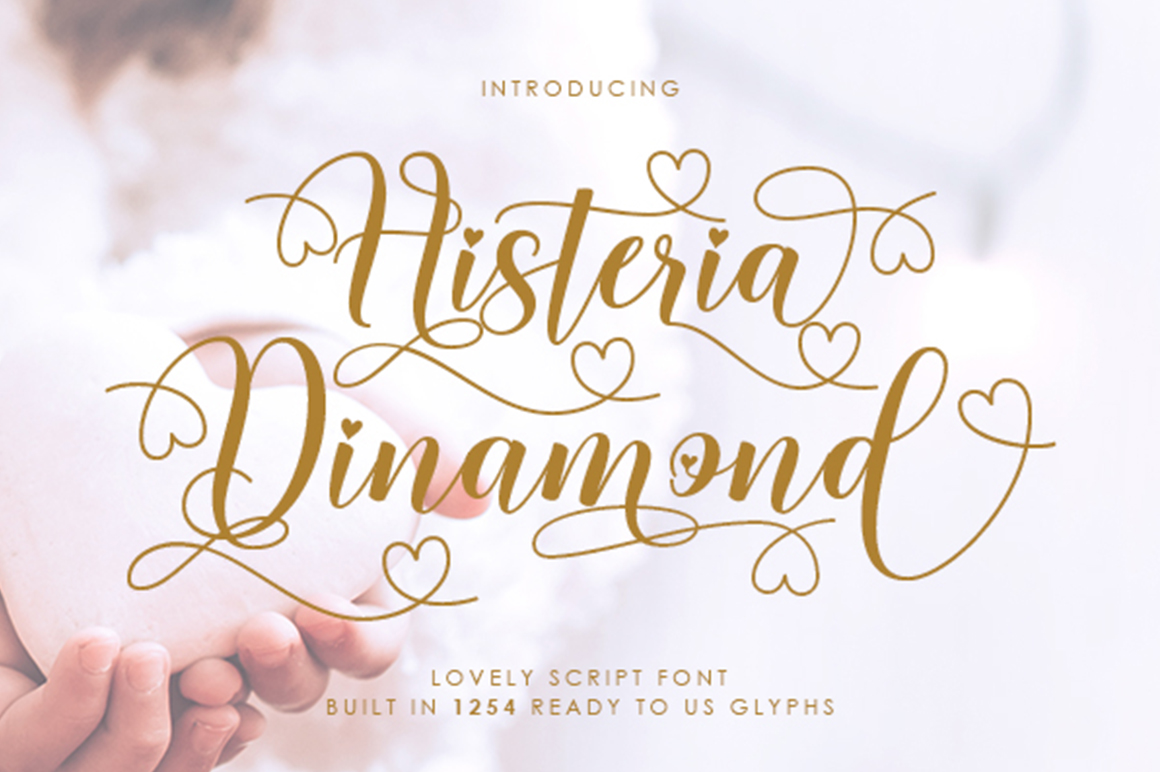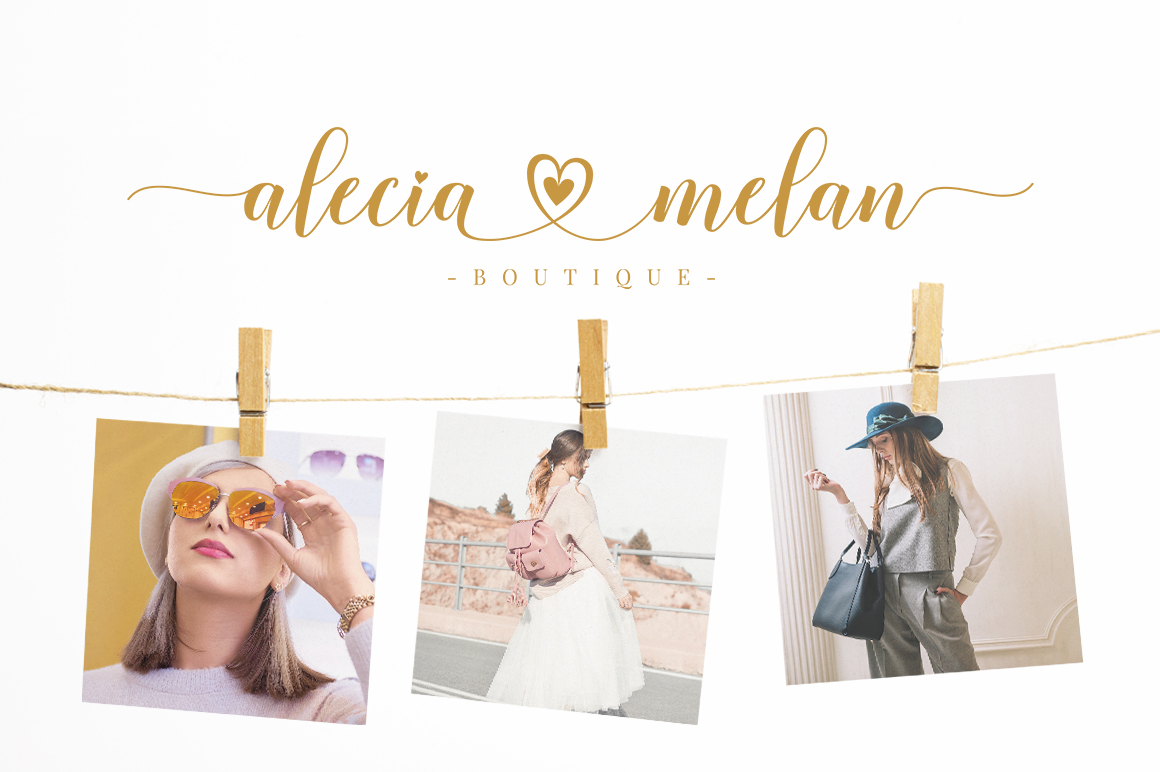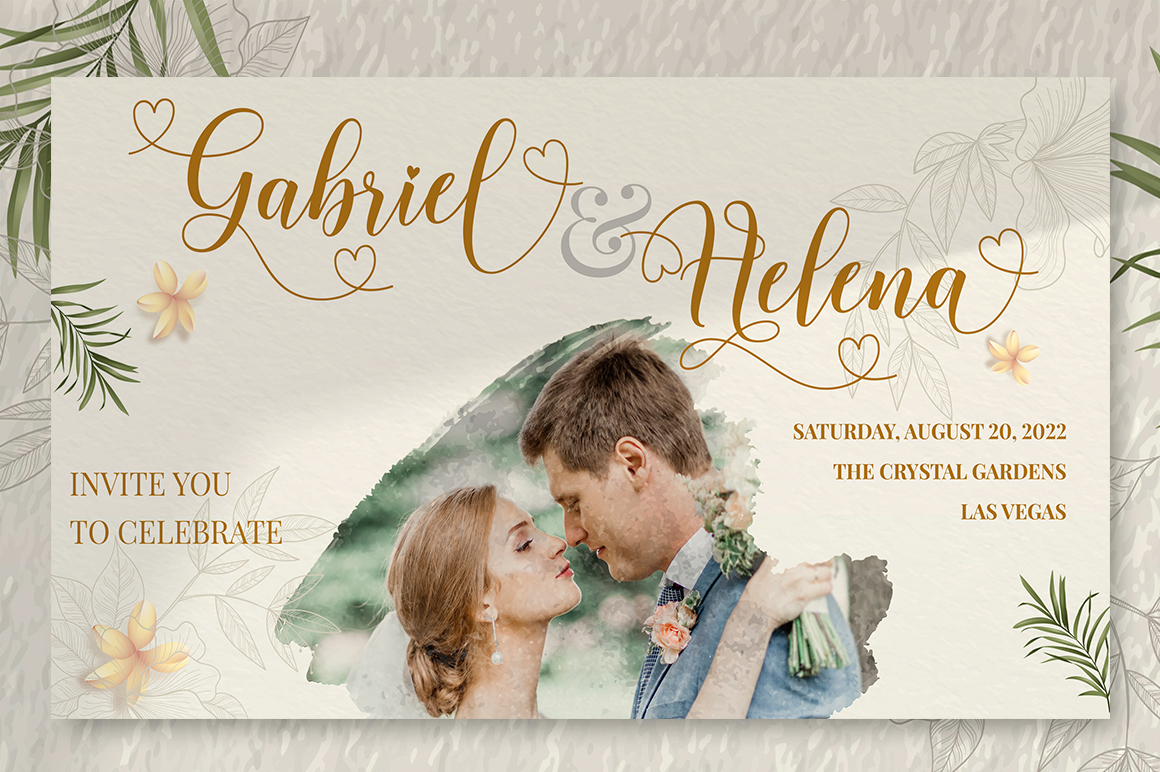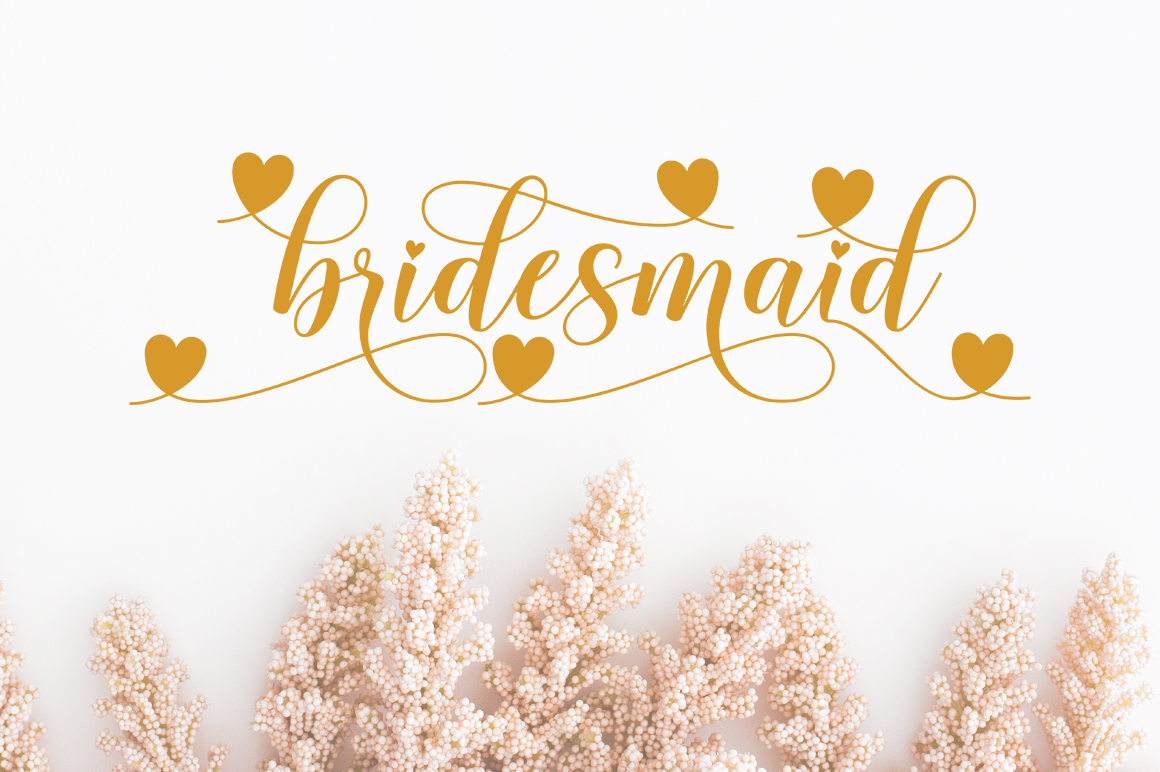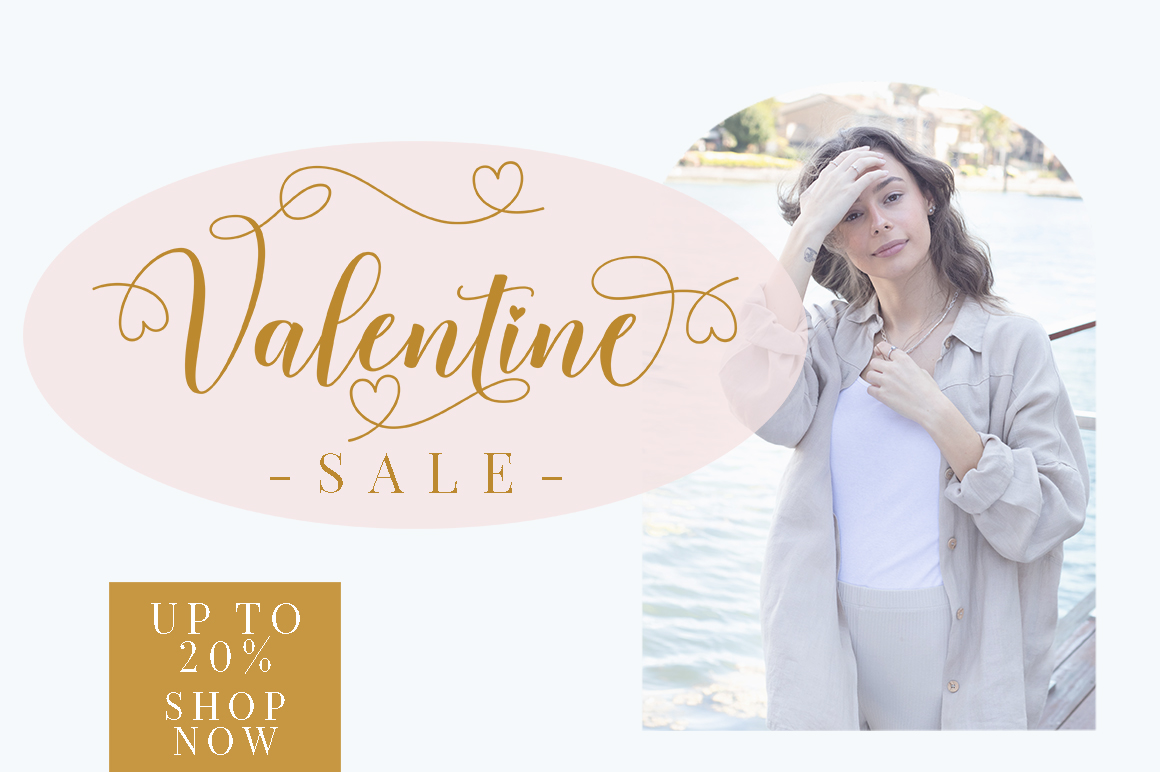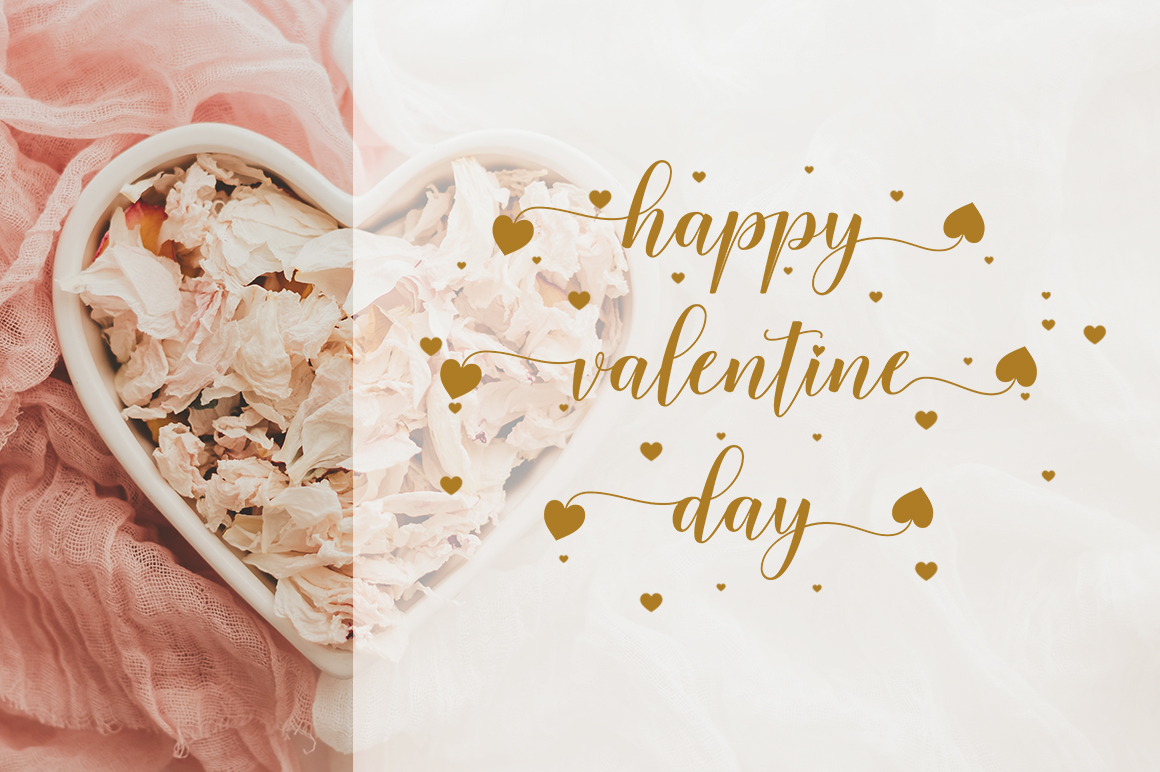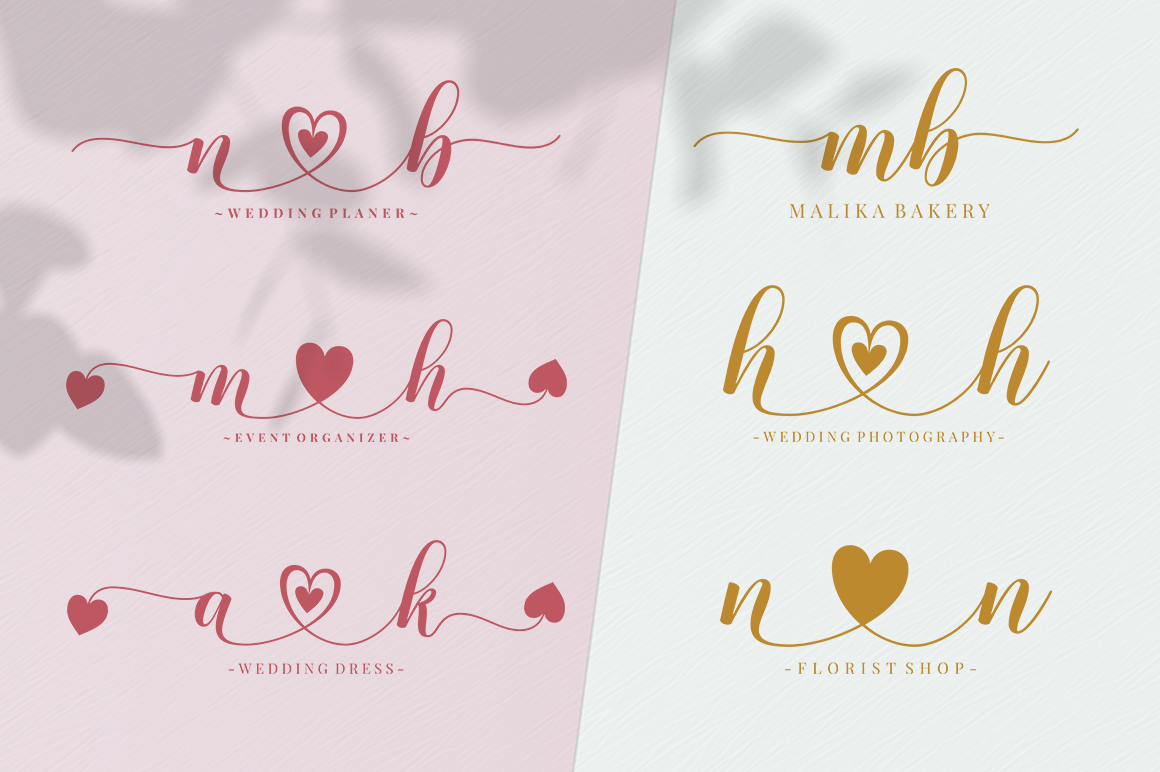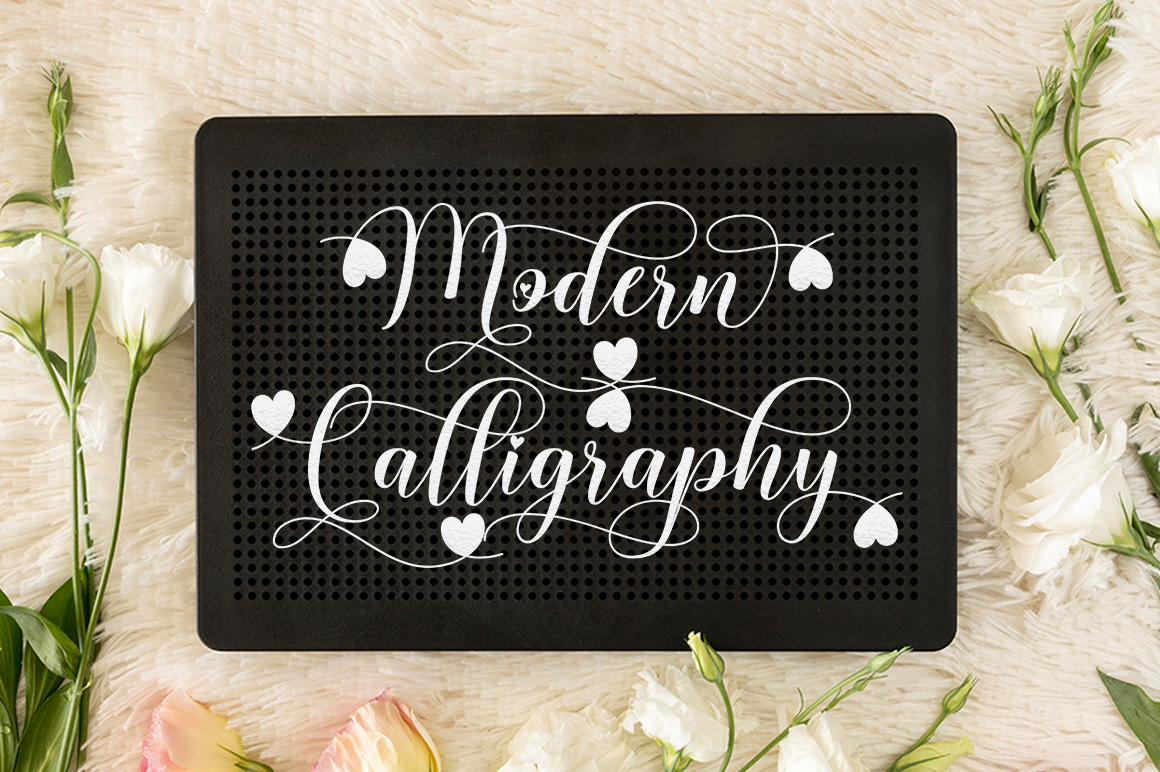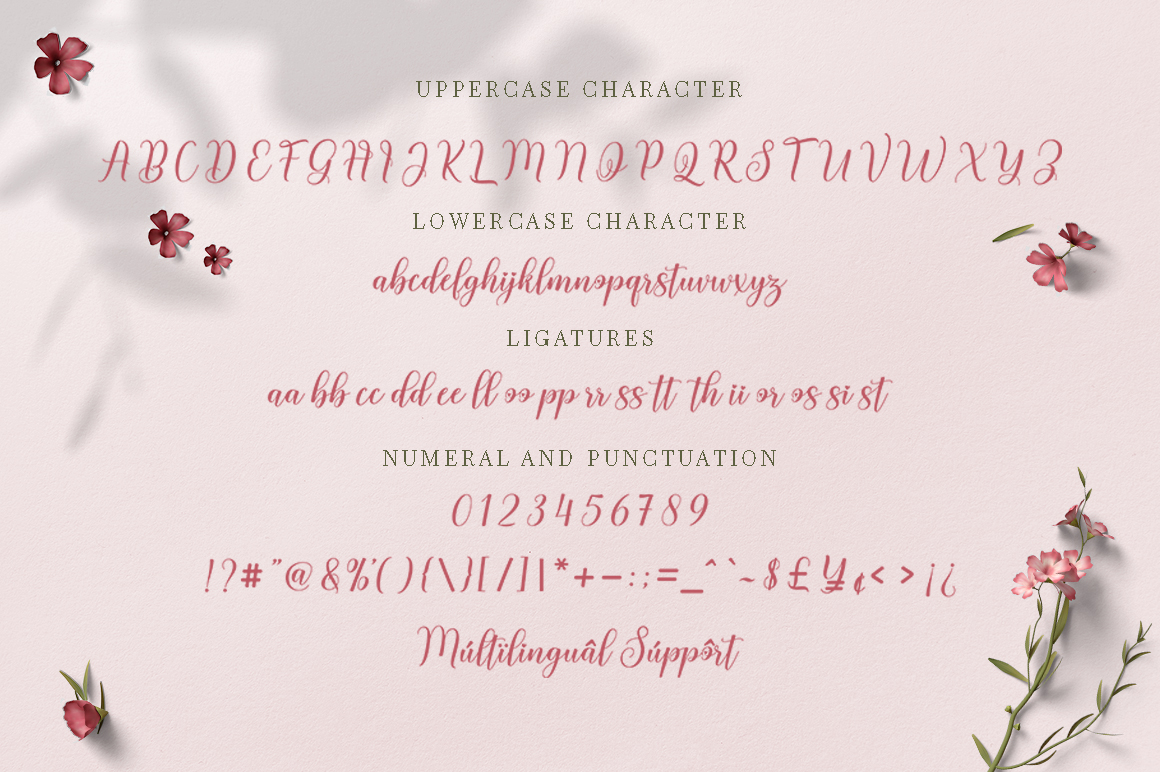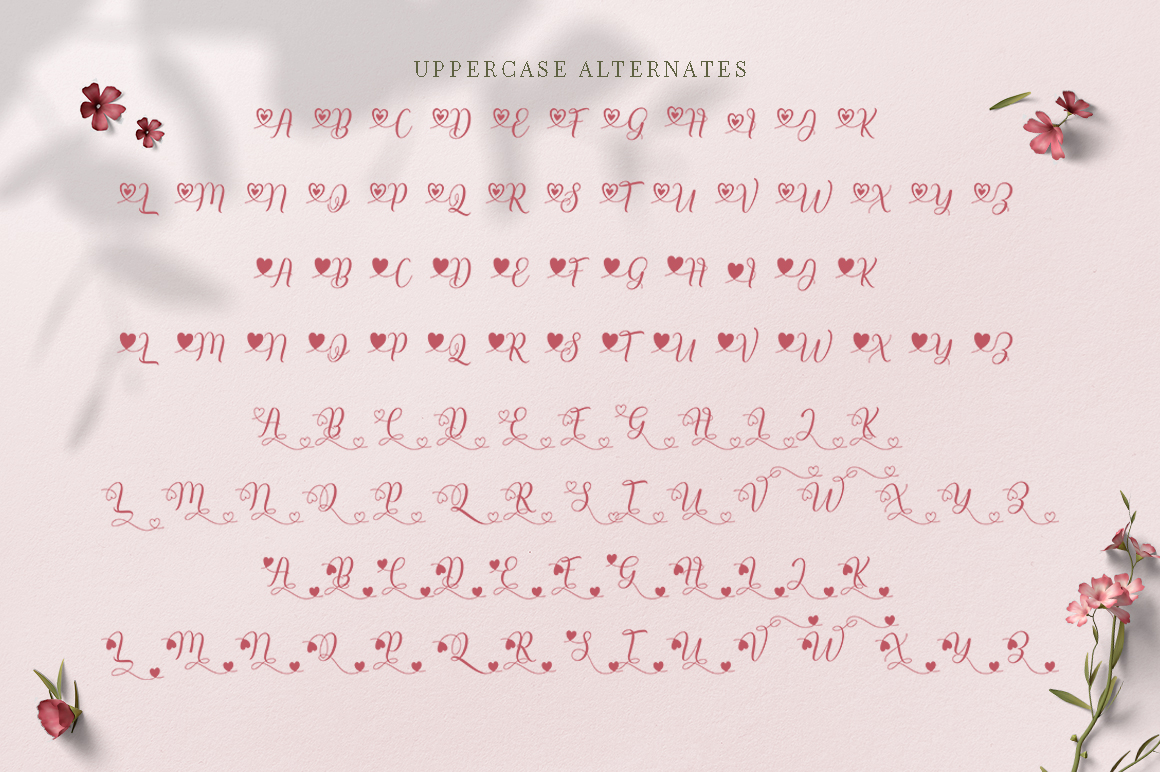
Histeria Dinamond is a new variant of beautiful script type with linkable hearts that is here to complete your script font collection. Histeria Dinamond comes with additional alternate characters up to 1254 glyphs.
Histeria Dinamond is perfect for branding, wedding invitations, business cards, posters, quotes and other romantic projects.
Histeria Dinamond features OpenType stylistic alternates, ligatures and International support for most Western Languages is included. To enable the OpenType Stylistic alternates, you need a program that supports OpenType features such as Adobe Illustrator CS, Adobe Indesign & CorelDraw X6-X7, Microsoft Word 2010 or later versions.